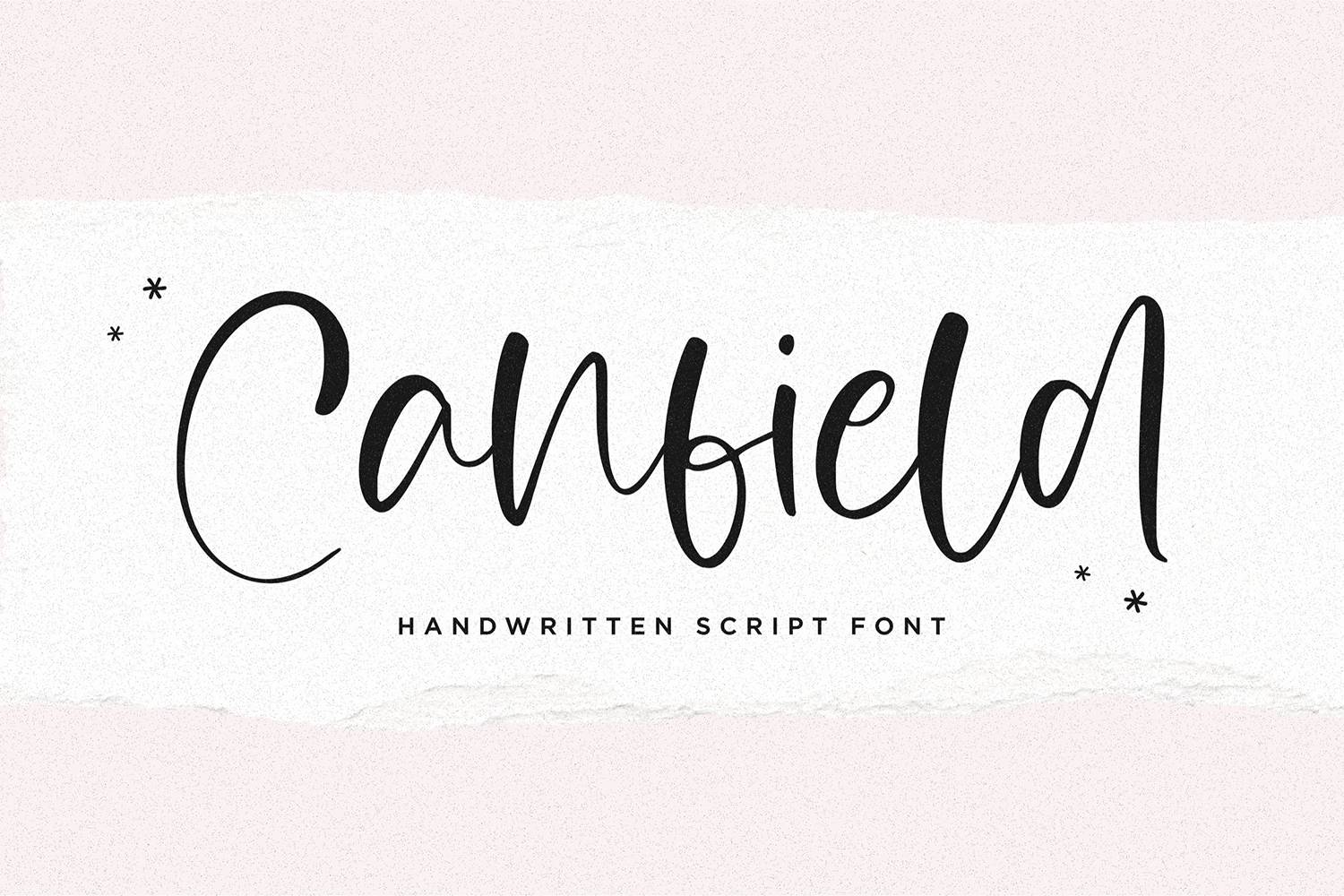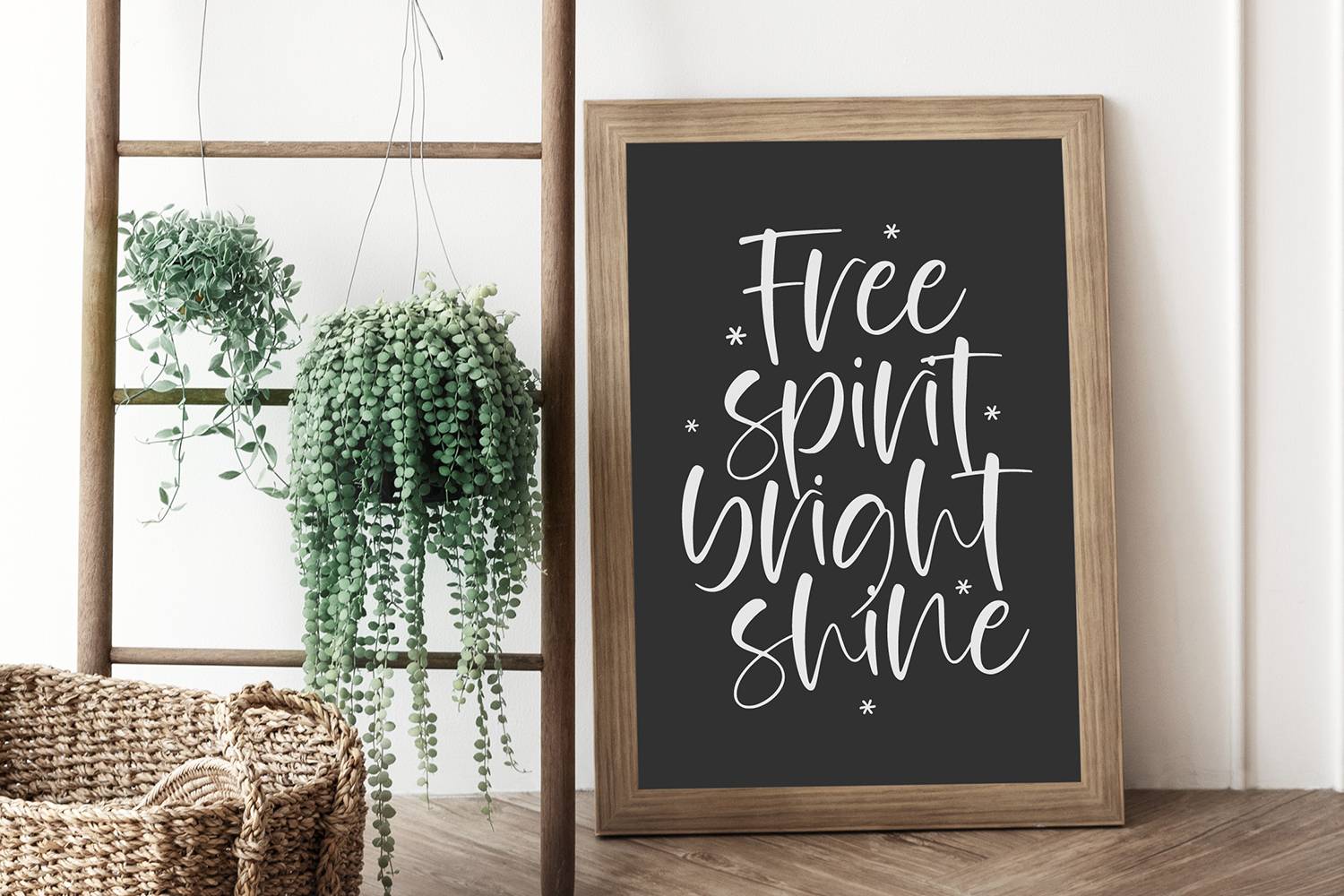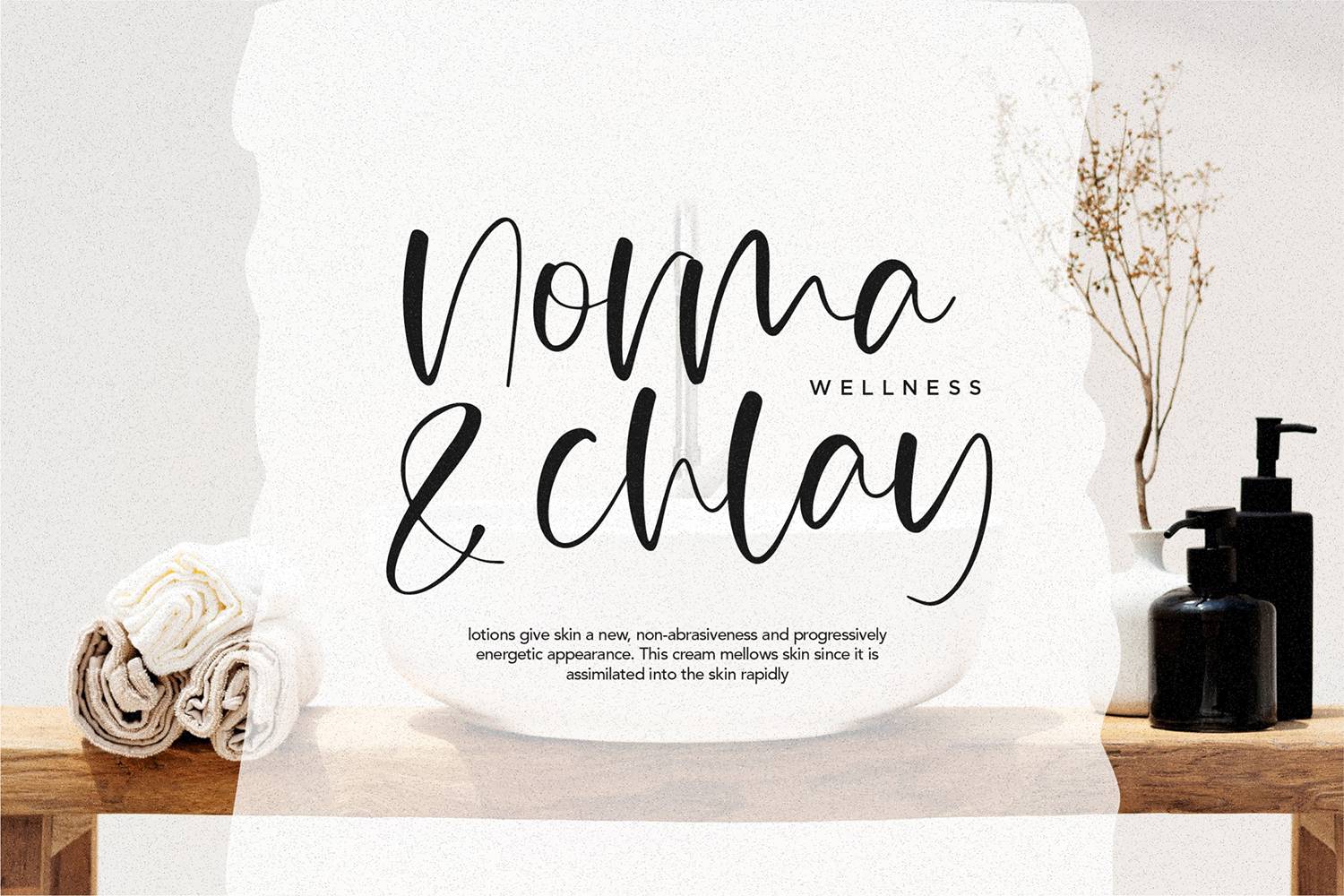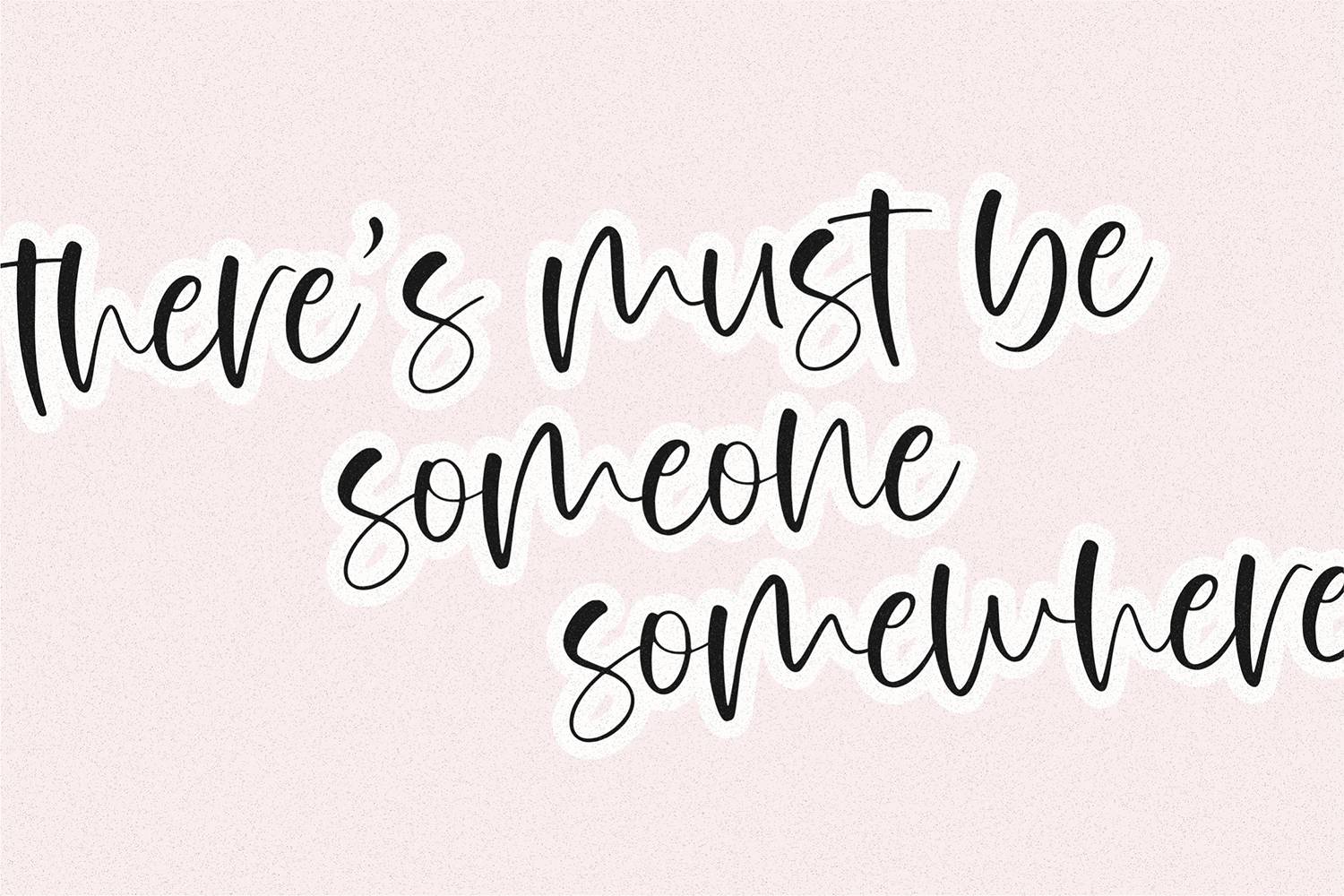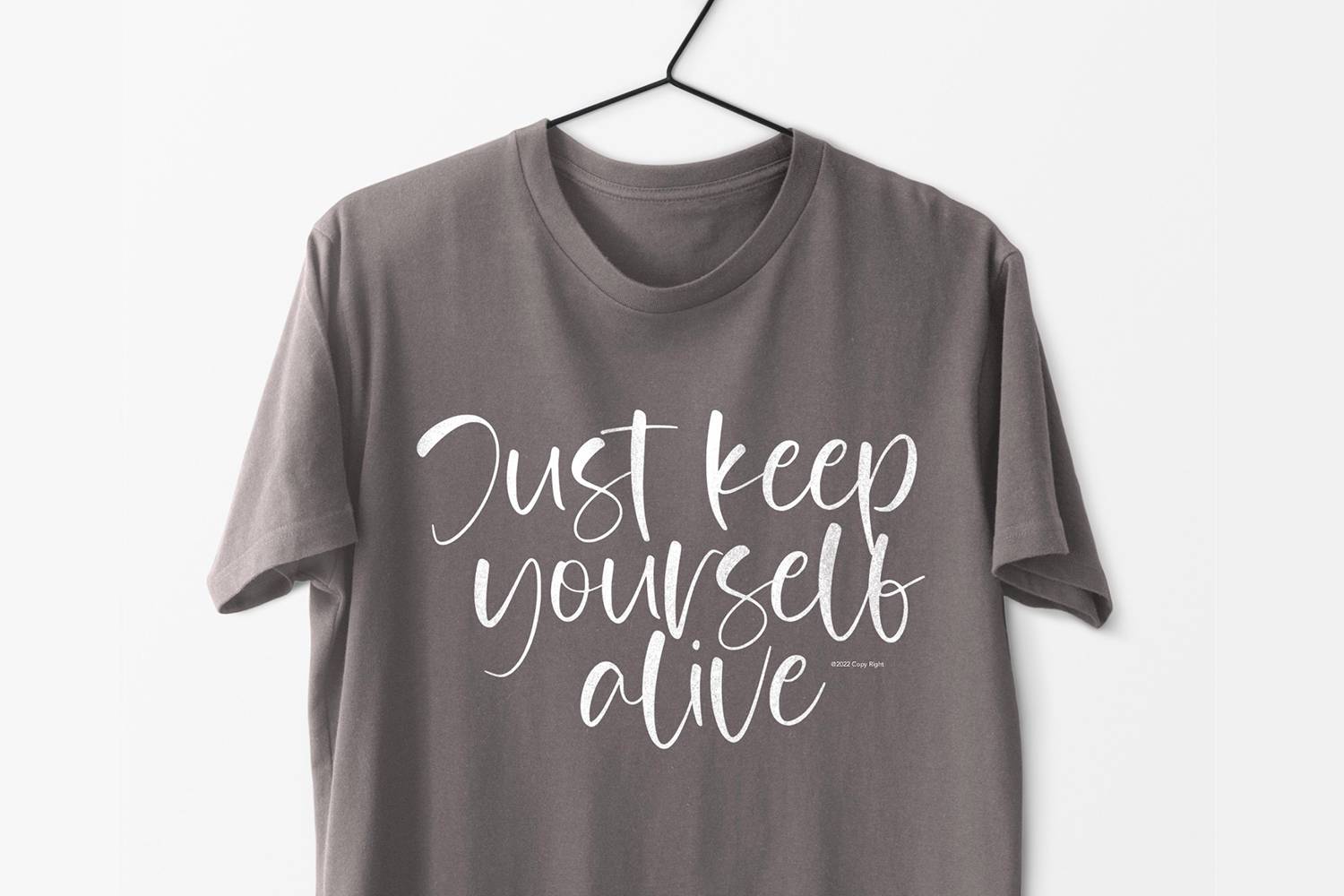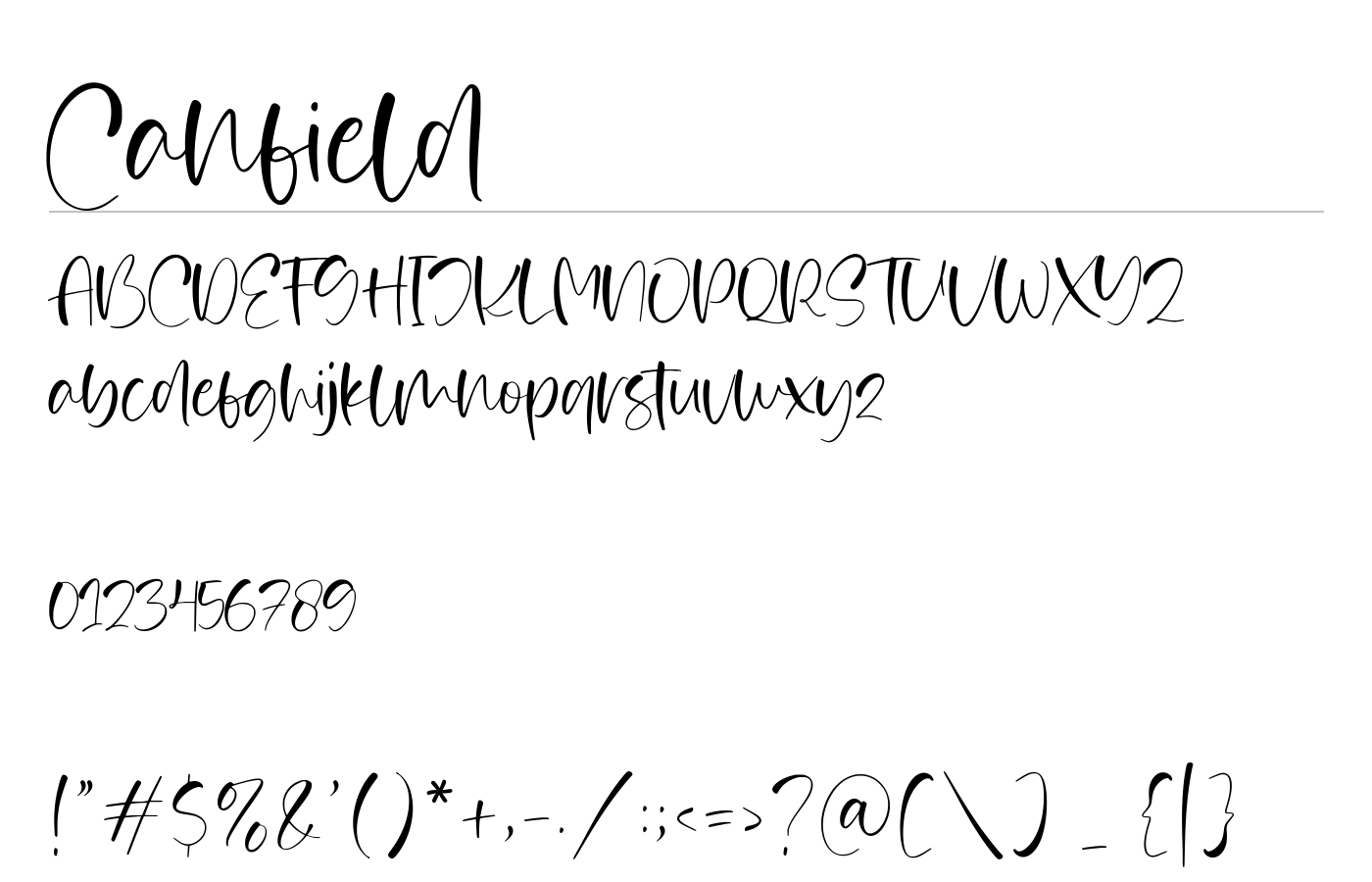
Canfield is a stylish handwritten script font characterized by its elegant and flowing letterforms with varying stroke widths that add a lively, personal touch. Its tall, slender characters and casual yet refined style make it perfect for creative uses like invitations, logos, and branding where a warm, approachable feel is desired. This font lends a charming and friendly personality, ideal for projects seeking a modern yet handcrafted appearance.
Canfiled Font
About Canfiled Font